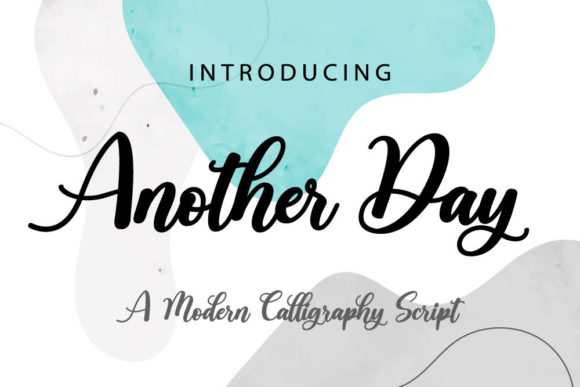
**Introducing Another Day Font: The Epitome of Grace and Sophistication**
Immerse yourself in the alluring embrace of Another Day Font, a captivating script font that whispers elegance and sophistication into your designs. Meticulously crafted by the maestros at Crafty Files, this font is an ode to timeless beauty and effortless style.
Another Day Font belongs to the illustrious family of script fonts, renowned for their graceful lines and flowing curves. Each character dances across the page with a delicate finesse, leaving an enchanting trail of artistry in its wake. It's a font that evokes a sense of refinement and luxury, making it the perfect choice for those seeking to elevate their designs to new heights of elegance.
Step into a world of endless creative possibilities with Another Day Font. Whether you're a seasoned designer or a creative novice, this versatile font will effortlessly complement your vision. Its exquisite charm adds a touch of whimsical elegance to invitations, branding, social media posts, and any project that yearns for a dash of grace and sophistication.
Imagine your jewelry designs adorned with the enchanting curves of Another Day Font. Its delicate strokes will dance around your precious creations, creating an aura of timeless beauty and allure. Your customers will be captivated by the intricate details and flowing lines, drawn to the undeniable elegance that only Another Day Font can bestow.
But Another Day Font's allure extends far beyond the realm of jewelry design. Its versatility knows no bounds, making it a treasure for designers of all stripes. From wedding invitations that exude romance to business cards that radiate professionalism, Another Day Font adds a touch of sophistication to every project it graces.
Embrace the exquisite beauty of Another Day Font and embark on a creative journey where elegance and sophistication reign supreme. Let your designs blossom with the timeless charm of this captivating script font, and experience the magic that unfolds when artistry meets grace.